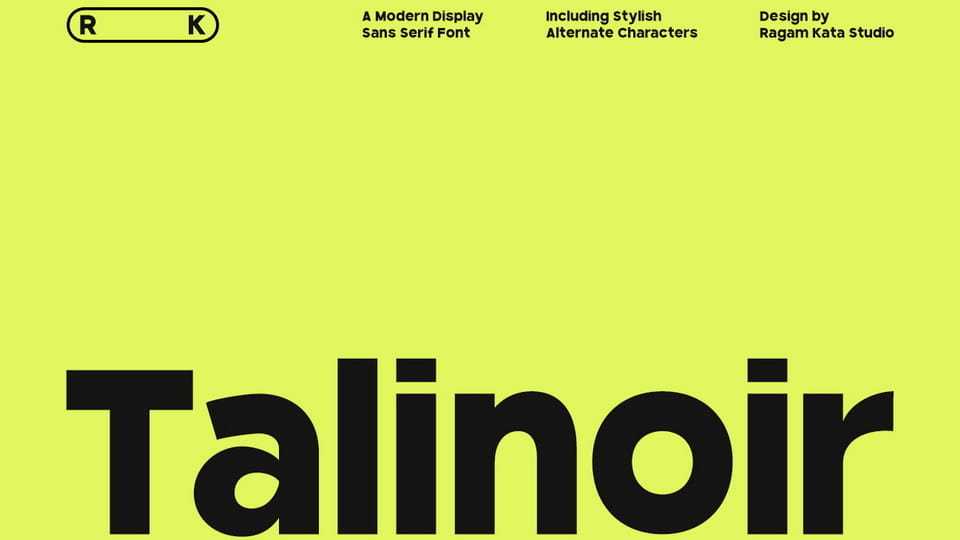
Download Talinoir font, a bold modern display sans serif typeface designed for impactful visuals and contemporary branding with its Its clean lines, geometric structure, and stylish alternate characters.